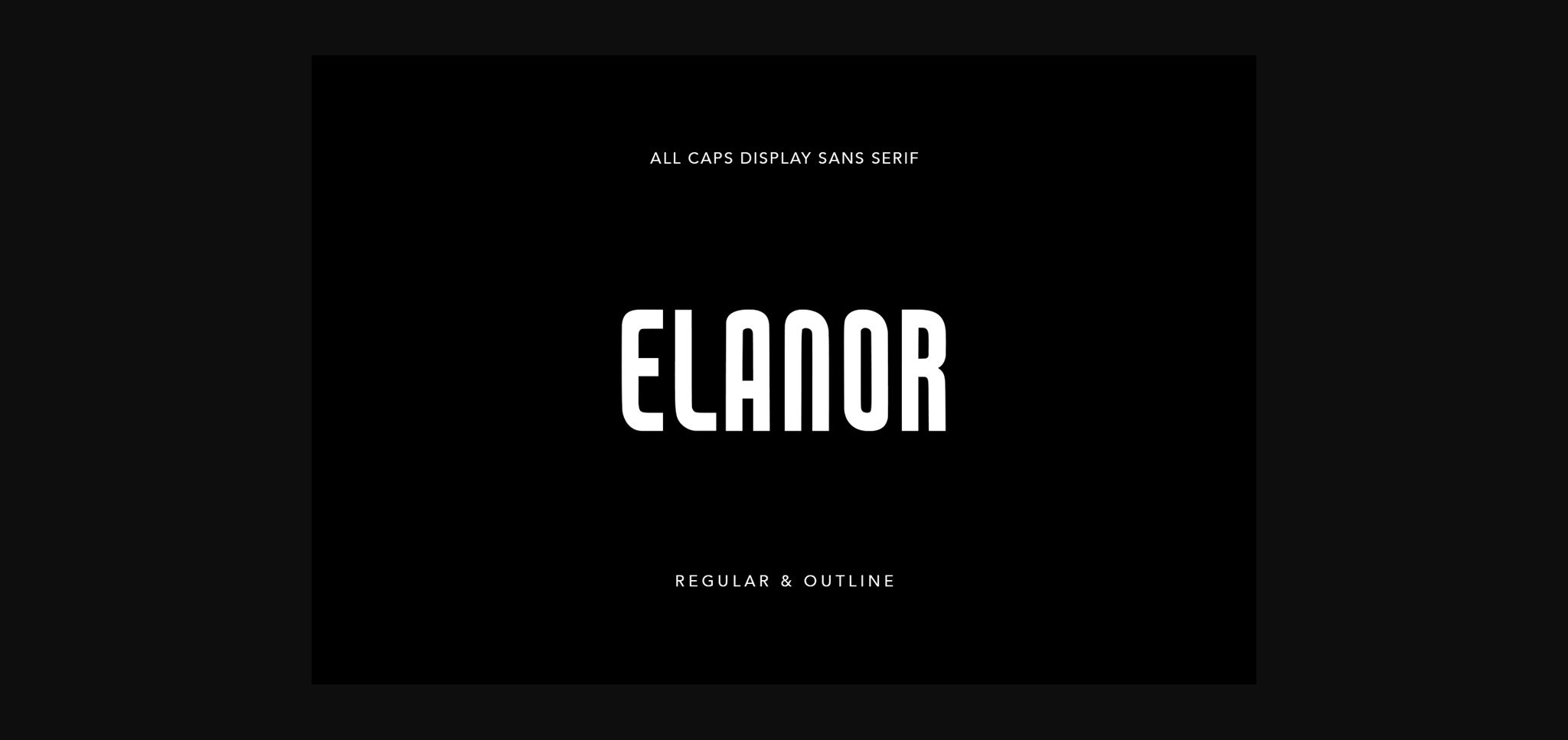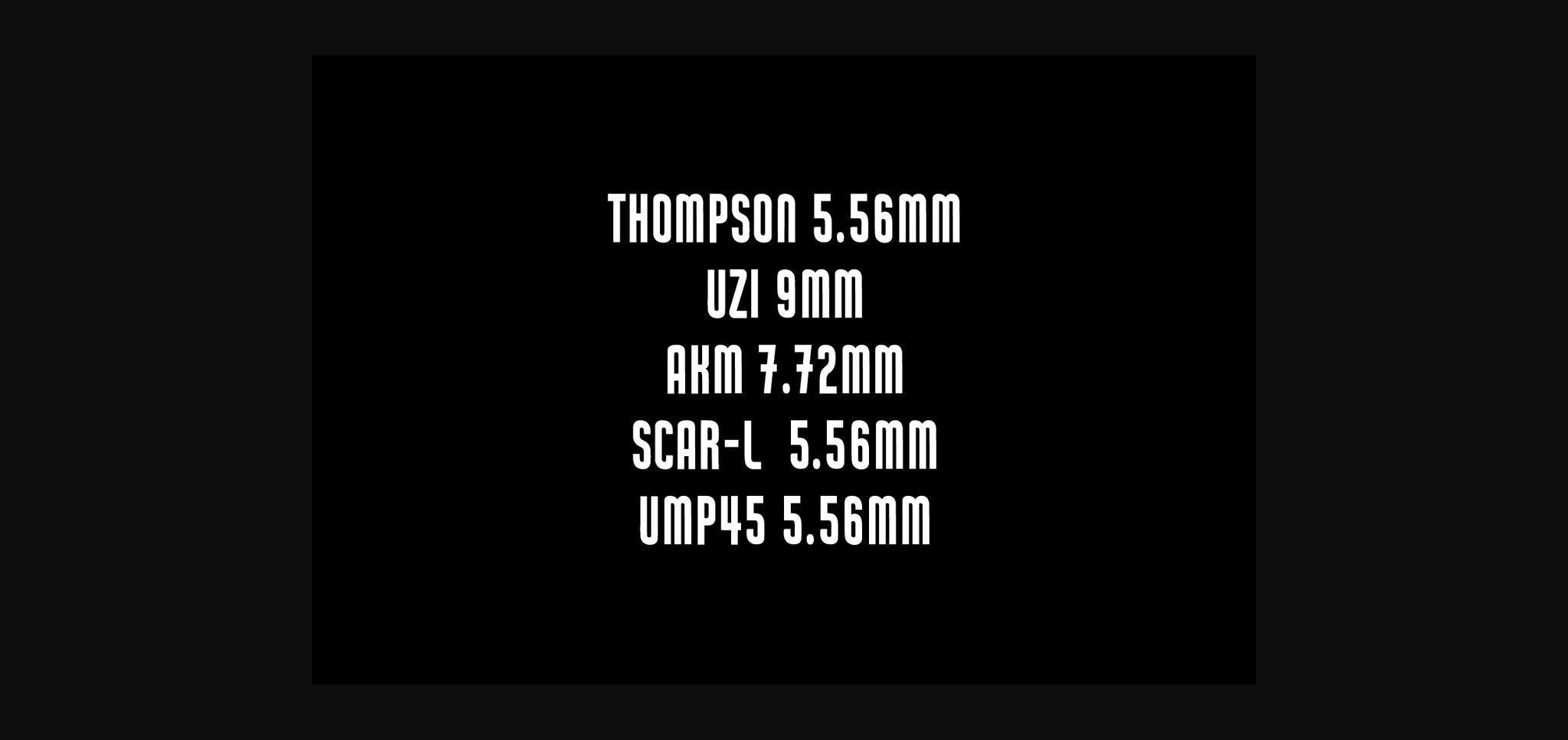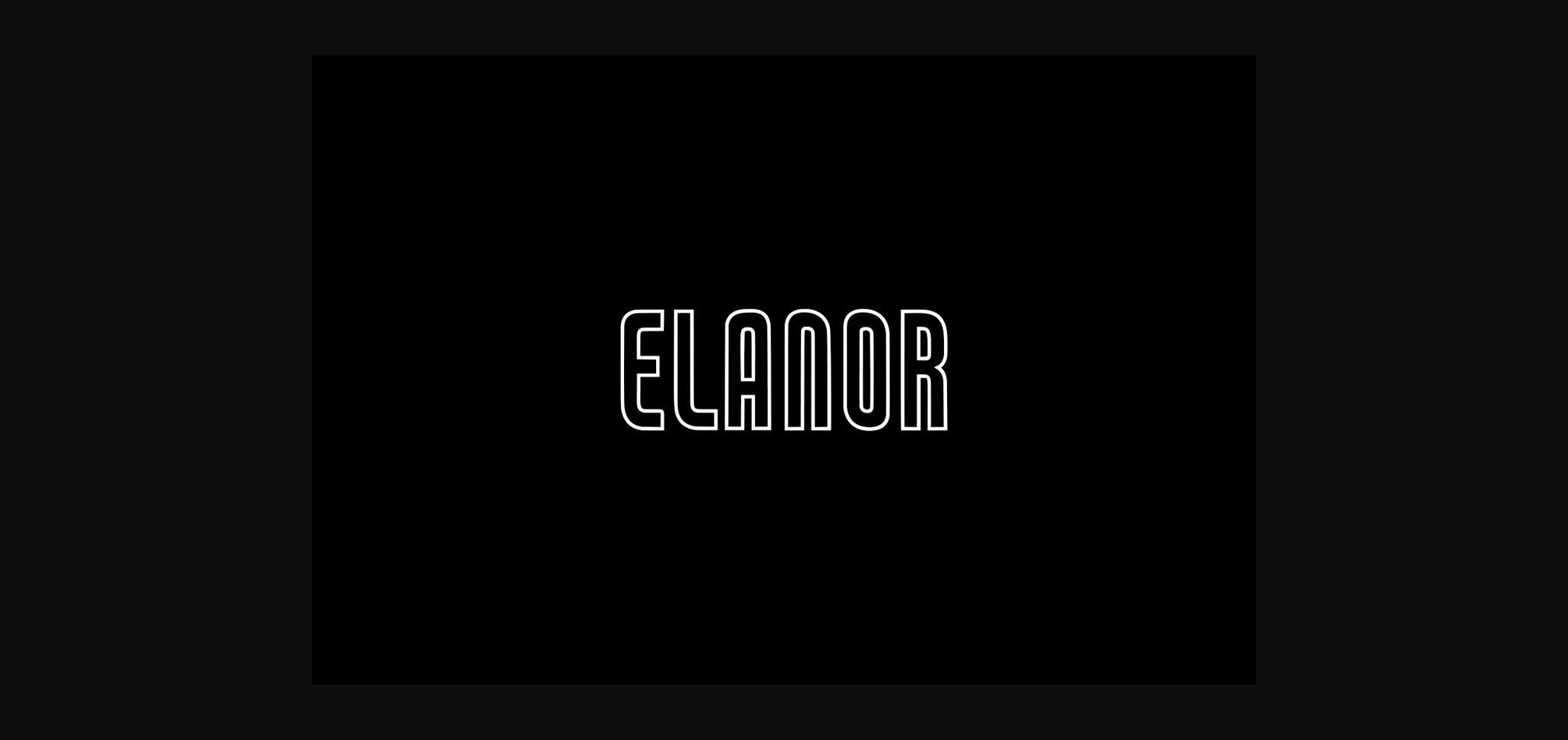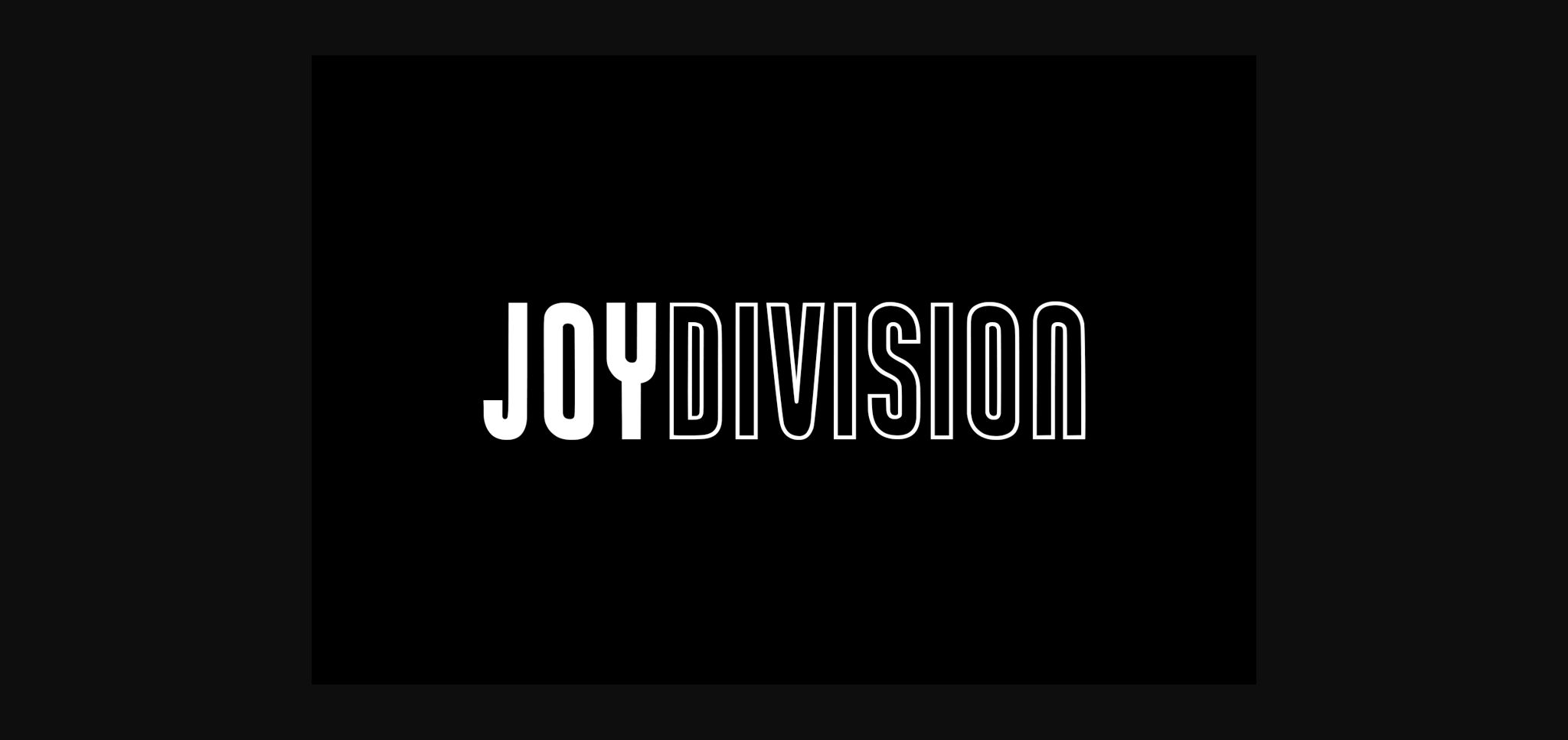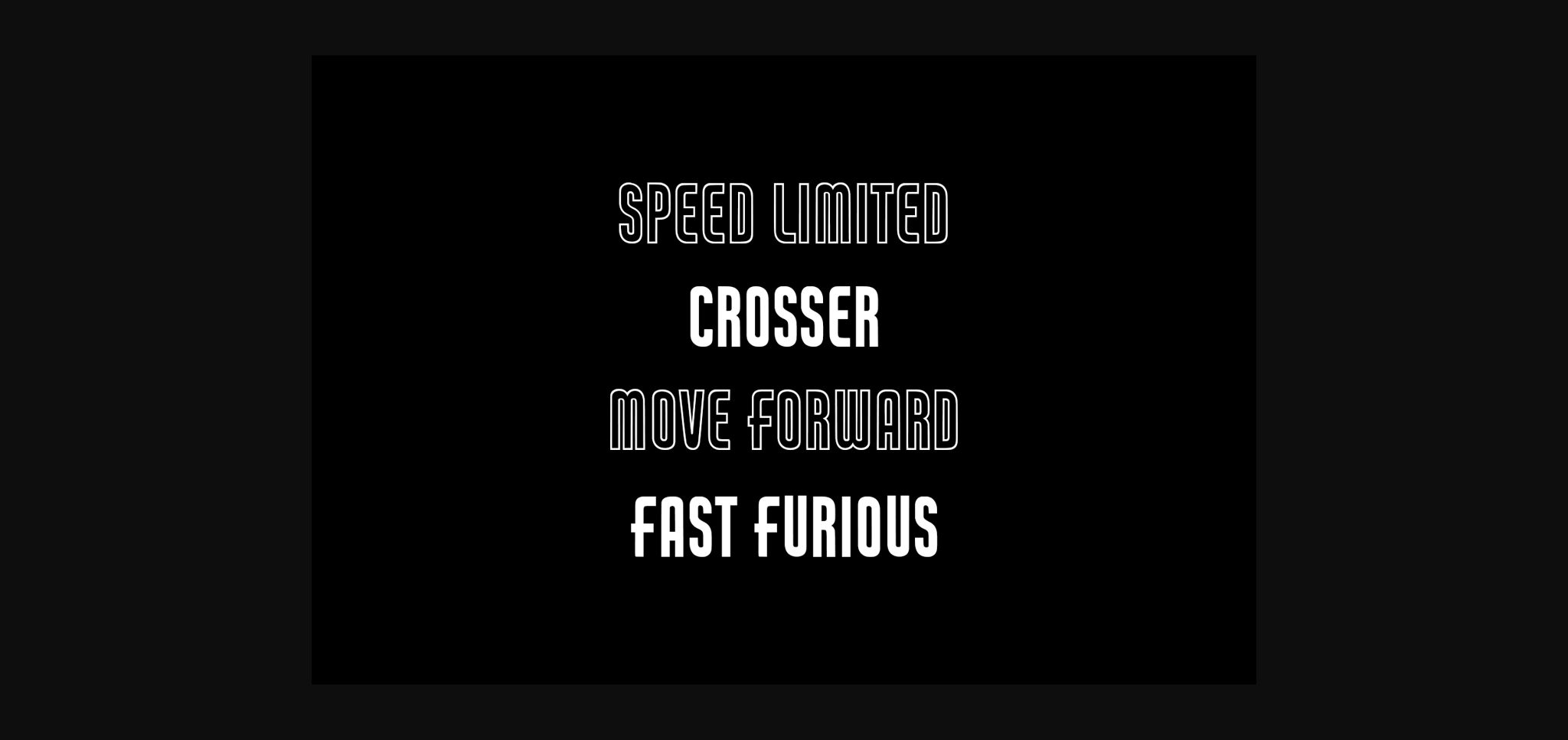
About Elanor Font
Elanor is a minimal yet bold sans serif font. It can easily be matched to an incredibly large set of projects, so add it to your creative ideas and notice how it makes them stand out!